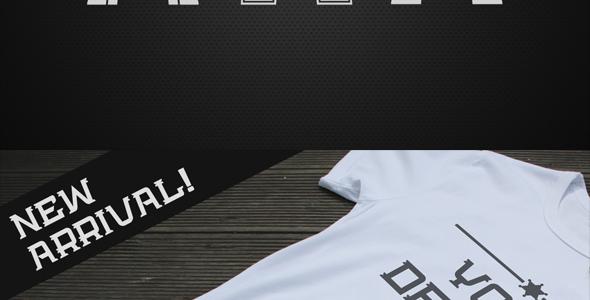
Bedengkang Typeface
Introducing “Bedengkang” Typeface, the elegance slab serif, available in three style : Clean – Inline – Expanded. Designed specifically to maximize your products and design projects. In OTF & TTF formats, featured : - Uppercase - Lowercase - Numbers - Standard Punctuation - Some latin glyphs